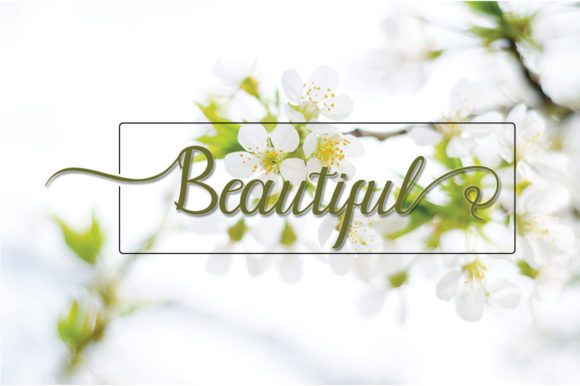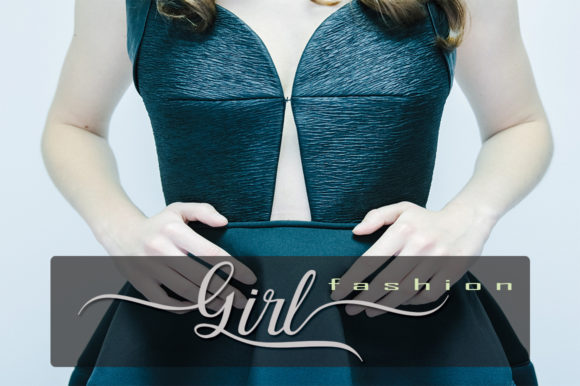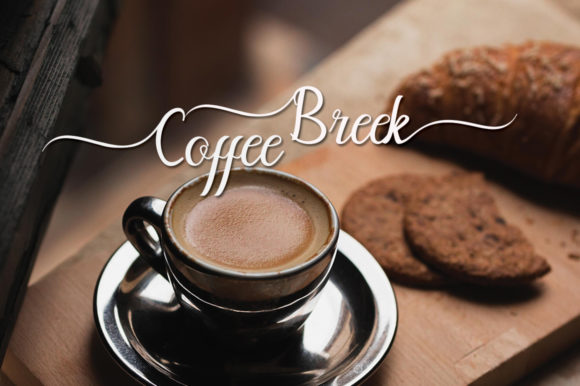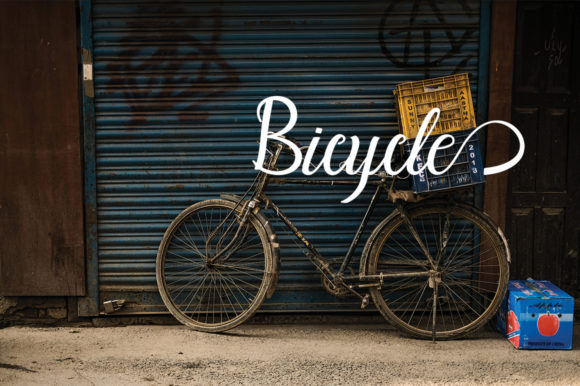
Introduction to Gulali Font
Gulali is a stunning, elegant and delicate handwritten font with a contemporary feel.
It will effortlessly turn any design project into a stand out .
Key Features of Gulali Font